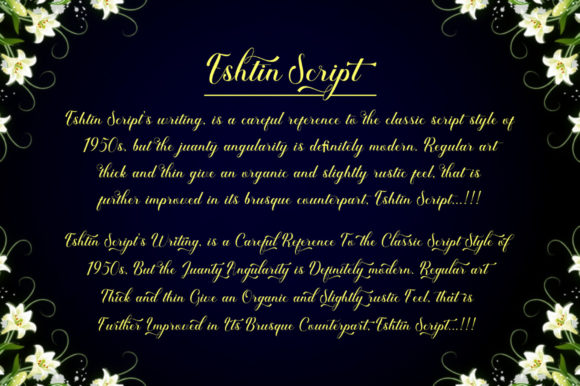
Introducing Eshtin Script Font: Elevate Your Designs with Timeless Elegance
Are you a designer or crafter looking for a font that exudes sophistication and refinement? Look no further than Eshtin Script Font, an elegant script font that embodies the perfect blend of classic calligraphy and modern flair. In this article, we’ll dive into the world of Eshtin Script, exploring its features, benefits, and uses, and why it’s a must-have addition to your typography collection.
The Inspiration Behind Eshtin Script
Eshtin Script Font draws inspiration from timeless classic calligraphy, with a contemporary twist that sets it apart from traditional script fonts. The result is a font that feels both nostalgic and fresh, perfect for designers and crafters seeking to add a touch of elegance to their work. Whether you’re creating wedding invitations, branding materials, or digital content, Eshtin Script is sure to impress.
Key Features of Eshtin Script Font
- PUA Encoding: Eshtin Script Font is PUA (Private Use Area) encoded, which means you can access all the glyphs and swashes with ease. This feature allows for greater flexibility and creativity in your designs, making it easy to incorporate flourishes and ornate details.
- Elegant and Refined: Eshtin Script boasts an impeccable form that is both elegant and refined. Its classic roots are evident in its flowing lines and curvaceous strokes, while its modern take ensures it feels fresh and contemporary.
- Contemporary Atmosphere: This font’s modern twist makes it perfect for designers and crafters looking to create work that feels current and on-trend. From fashion branding to digital content, Eshtin Script is versatile enough to suit a wide range of applications.
Benefits of Using Eshtin Script Font
So why choose Eshtin Script Font for your next project? Here are just a few benefits of incorporating this beautiful font into your work:
- Adds Sophistication and Elegance: Eshtin Script Font instantly elevates your designs, adding a level of sophistication and refinement that’s hard to achieve with other fonts.
- Versatile and Adaptable: With its PUA encoding and extensive character set, Eshtin Script Font can be used in a wide range of applications, from print materials to digital content.
- Easy to Use: This font is designed to be user-friendly, making it easy to access and incorporate the glyphs and swashes you need to create stunning designs.
Uses for Eshtin Script Font
Eshtin Script Font is a versatile font that can be used in a variety of applications, including:
- Wedding Invitations and Stationery: Add a touch of elegance to your wedding invitations, save-the-dates, and other stationery with Eshtin Script Font.
- Branding and Packaging: Use Eshtin Script Font to create sophisticated branding materials, such as logos, business cards, and packaging.
- Digital Content: Elevate your digital content, including blog posts, social media graphics, and email newsletters, with the refined and elegant feel of Eshtin Script Font.
In conclusion, Eshtin Script Font is a stunning script font that offers the perfect blend of classic elegance and modern flair. With its PUA encoding, elegant form, and versatile uses, it’s a must-have addition to any designer’s or crafter’s typography collection. Whether you’re creating wedding invitations, branding materials, or digital content, Eshtin Script Font is sure to impress. So why wait? Download Eshtin Script Font today and elevate your designs to new heights!